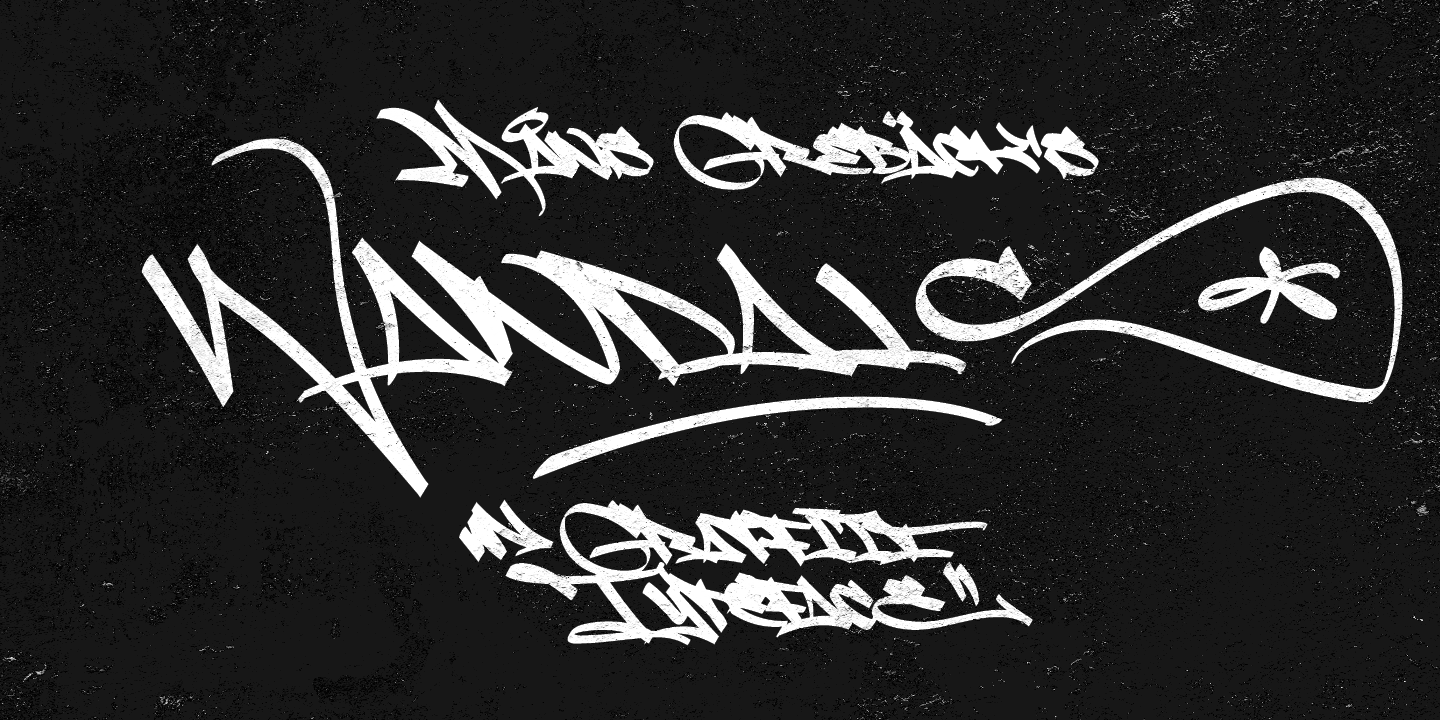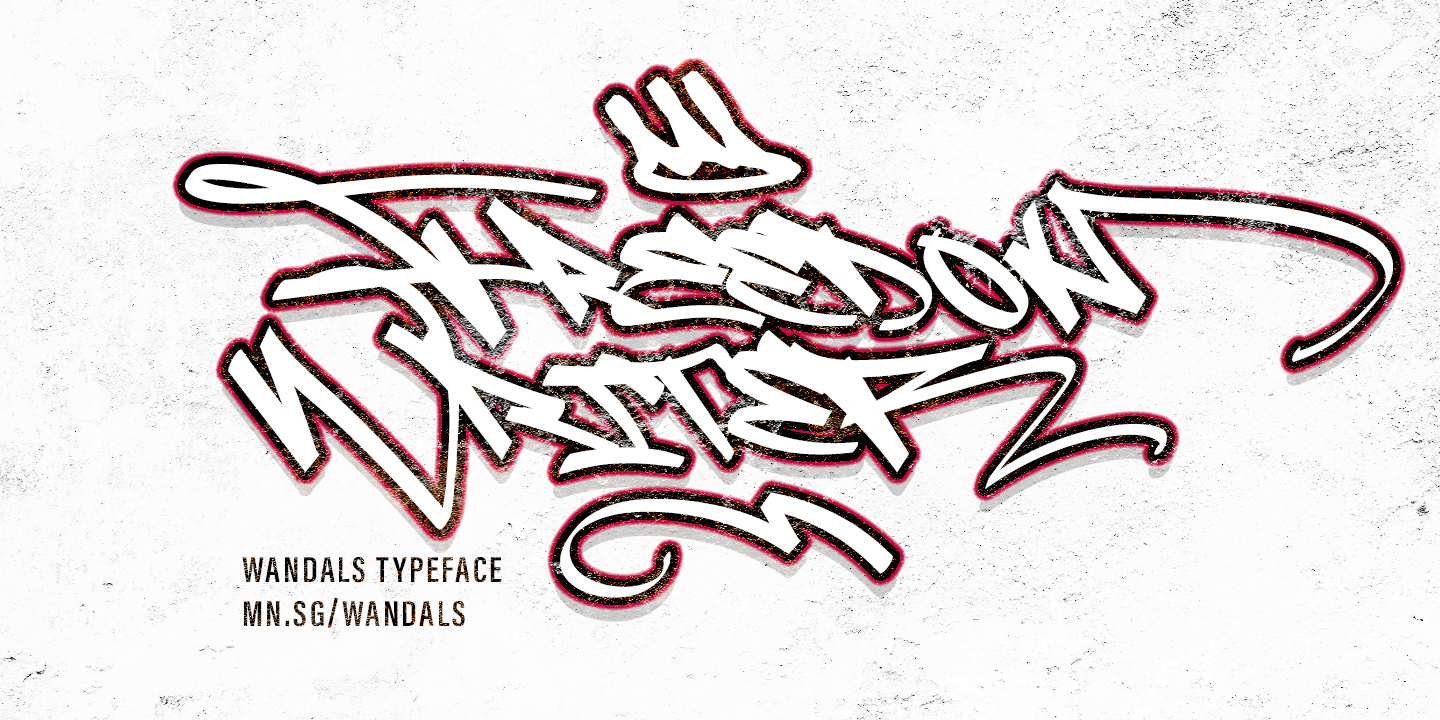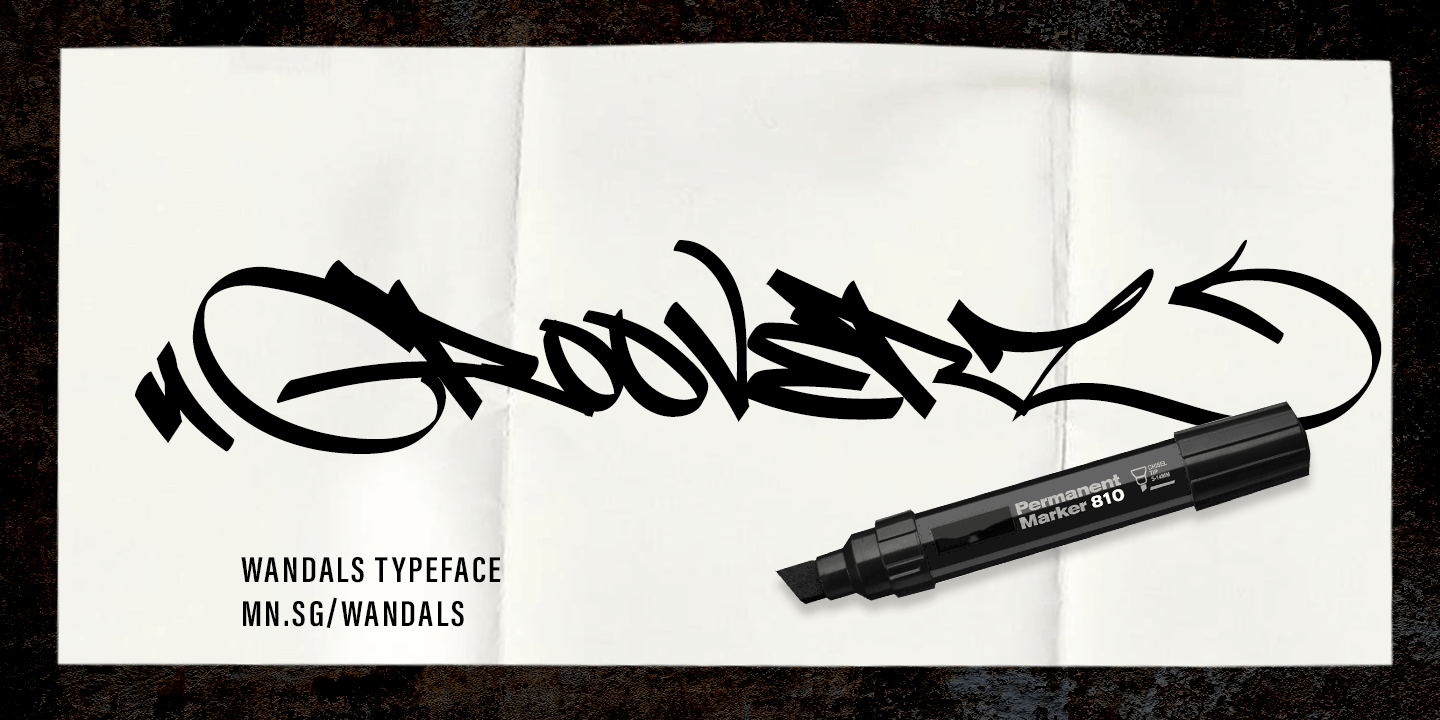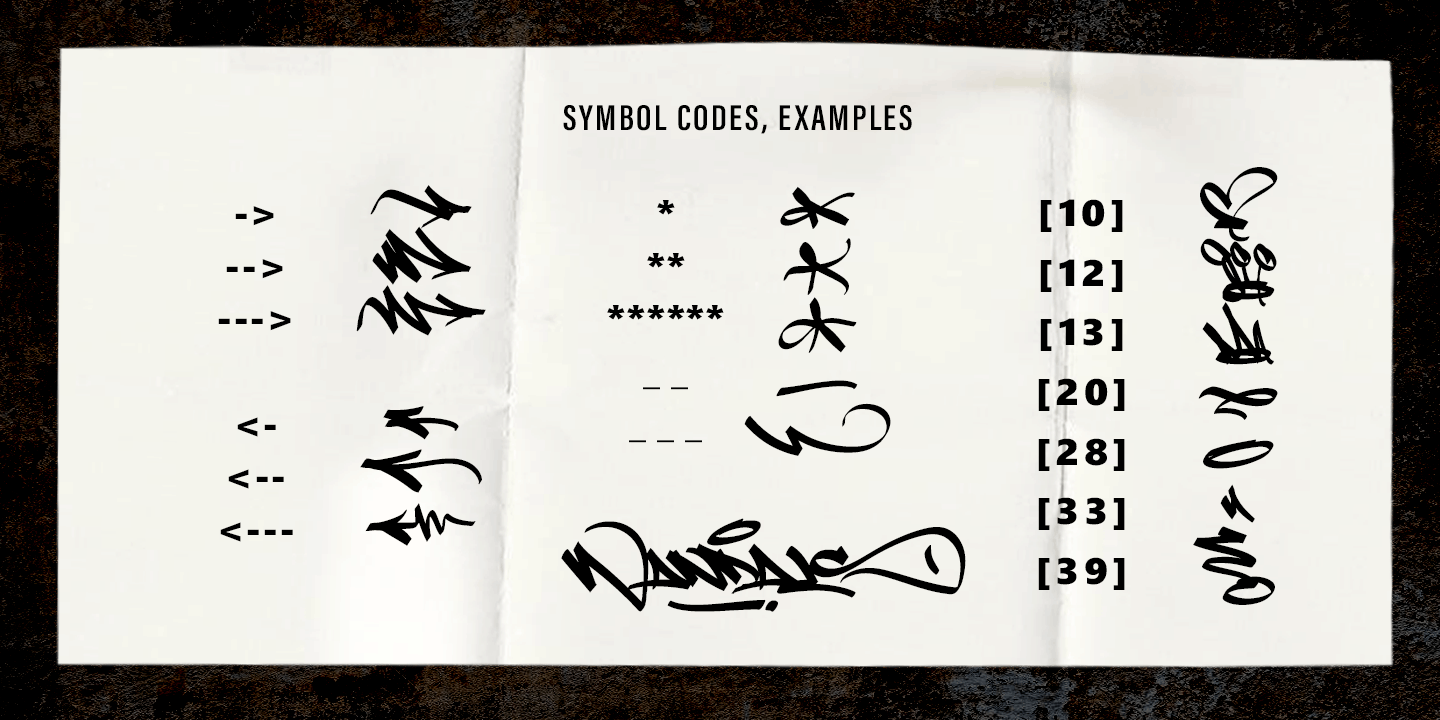
Wandals
Wandals – a professional tag typeface.
Wandals is a high-quality graffiti typeface, drawn and created by Måns Grebäck during 2018. It has multiple alternate alphabets, to be used to create a feeling of real handwriting. Activate contextual alternates and every letter will look different, with a final extended swash. Wandals exists in three weights: Fat Wandals, Slim Wandals and Light Wandals
The family comes with a bonus Element font, containing decorative symbols to be used with the lettering. The extensive set of characters covers all European Latin based languages.